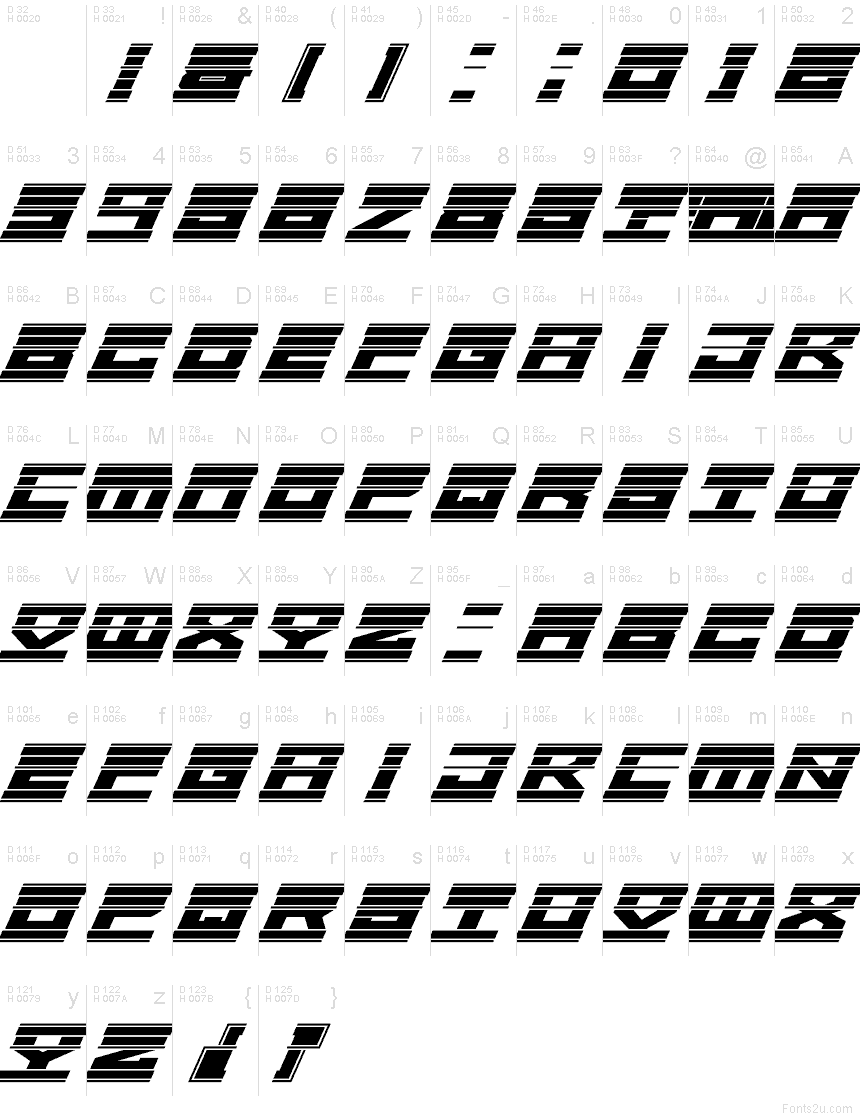
Gear-Line
Gear6 Line font by Youssef Habchi is a free techno display font that channels raw speed. Its slanted forms and razor-edged cuts carve bright inlines through each letter, like light streaks on wet asphalt. The rhythm is tight and forward-leaning, so headlines feel propelled—sleek, aerodynamic, and unmistakably high-octane—within the Gear6 family.
Using Gear6 Line, you can charge up racing posters, esports branding, sci‑fi titles, streaming overlays, automotive decals, and tech launch graphics. The compact spacing keeps momentum without feeling cramped, while the internal lines add motion even in static layouts. This free font pairs cleanly with a neutral grotesk for body copy; try bold, all-caps at large sizes to let those inlines blaze.